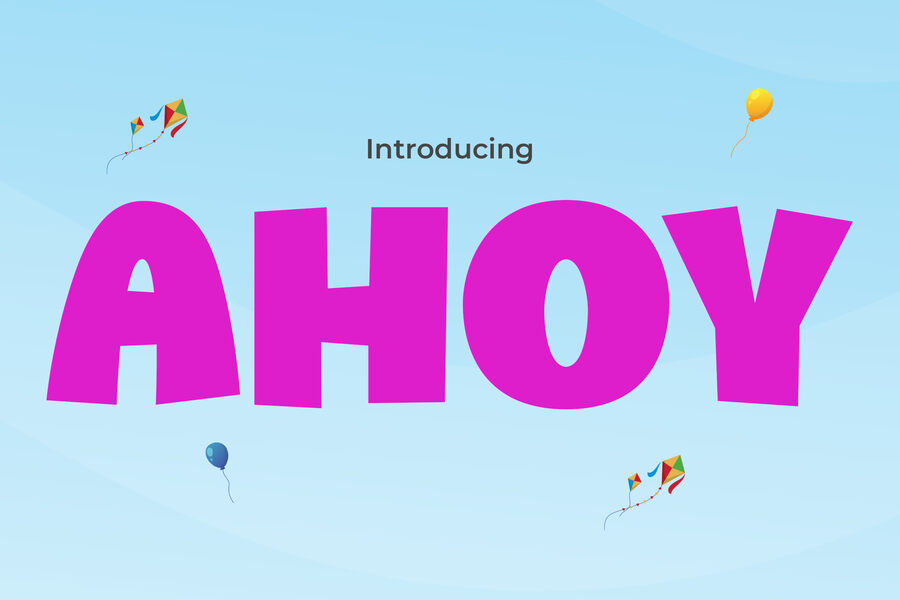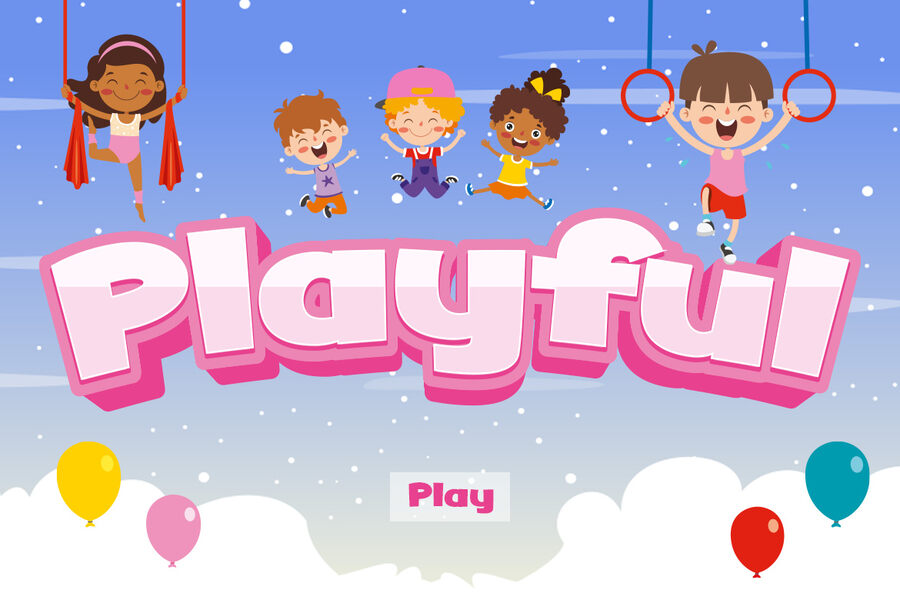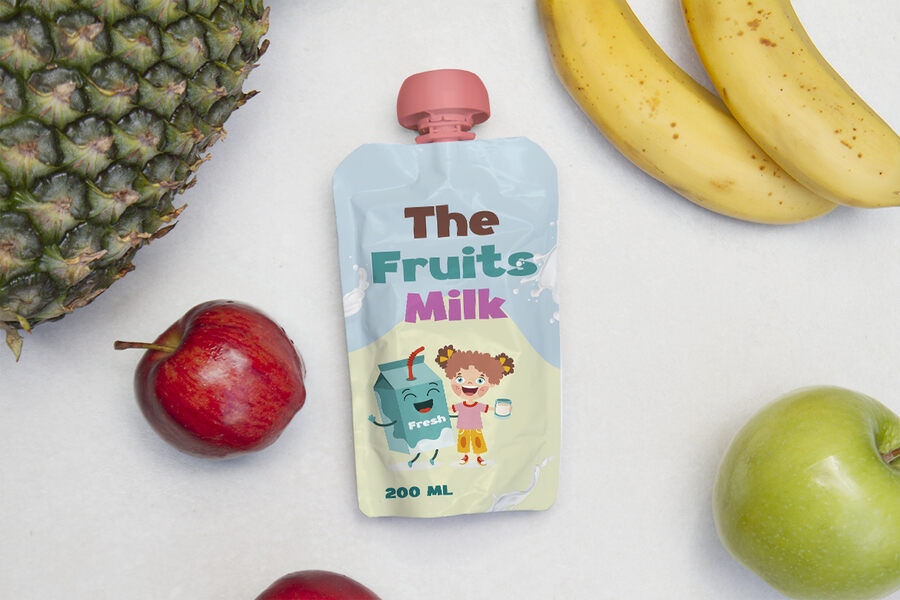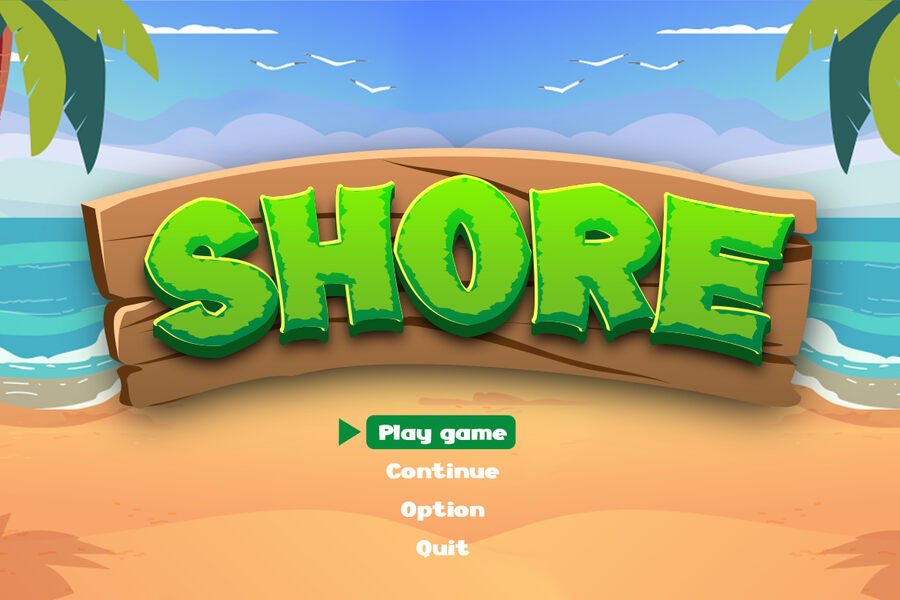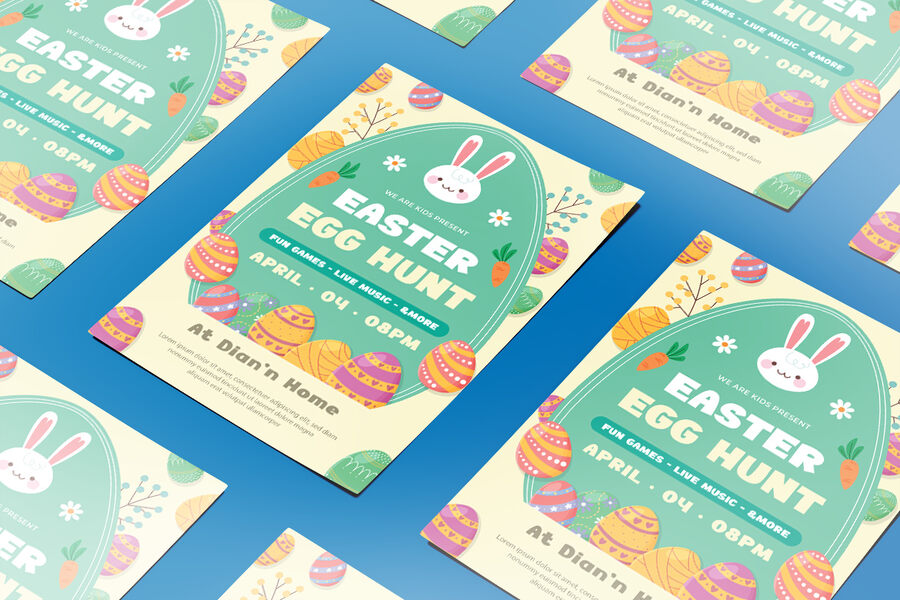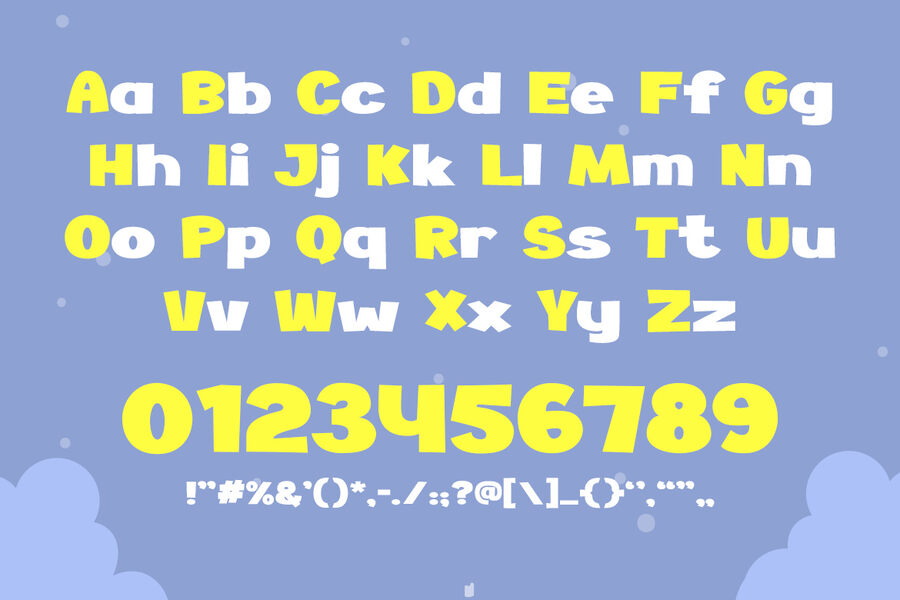
Ahoy is a bold, playful, and eye-catching typeface designed to bring excitement and energy to any creative project. With its thick letterforms and slightly exaggerated proportions, this font embodies a fun and adventurous spirit. Moreover, its rounded edges and friendly curves make it feel welcoming and lively, perfect for designs that need a cheerful and youthful vibe.